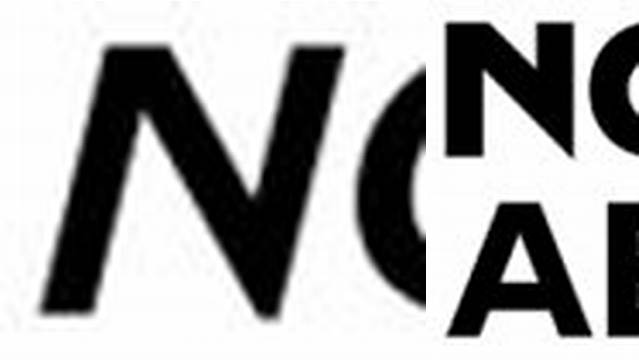
Welcome, design enthusiasts! Are you on the hunt for a font that screams modernity and boldness? Look no further! Novera, a sleek and contemporary typeface, is here to elevate your projects. And the best part? You can snag a free download! In this comprehensive guide, we'll dive deep into the world of Novera, exploring its features, ideal applications, and provide you with some killer design tips to make your work stand out. Let's get started, shall we?
Why Choose Novera? Decoding the Font's Appeal
So, what makes Novera such a compelling choice for your design needs? Well, guys, let's break it down. First and foremost, the font boasts a clean and minimalist aesthetic. This is gold, especially in today's design landscape, where simplicity often reigns supreme. The bold weight of Novera commands attention without being overwhelming. It's like that friend who walks into a room and instantly grabs everyone's eye – confident, yet approachable. Novera's versatility is another major draw. It works wonders in a wide range of applications, from website headers and social media graphics to print materials like posters and brochures. Seriously, you can experiment with it in just about any design project you can dream up.
The letterforms themselves are crafted with precision. The curves and lines are perfectly balanced, creating a visually pleasing and harmonious effect. This attention to detail makes Novera incredibly readable, even at smaller sizes, a crucial consideration for any designer. The font family often includes a range of weights, allowing you to add emphasis or create visual hierarchy in your designs. This flexibility means you can use Novera to craft a brand identity that speaks volumes about your style. Its modern appearance is a game-changer, ensuring your design looks current and on-trend. Whether you're working on a tech startup's website, a fashion brand's marketing materials, or a personal project, Novera can inject a dose of sophistication and style.
One of the coolest things about Novera is its ability to blend in seamlessly with various design elements. It's like the ultimate chameleon font! It can be paired with everything from elegant serif fonts to playful sans-serif fonts. This makes it suitable for various design styles, from minimalist to more expressive designs. And let's not forget the impact it has on your overall design message. The bold statement of Novera can communicate strength, confidence, and a modern approach, influencing how your audience perceives your brand or project. Ultimately, choosing Novera means choosing a font that is both beautiful and practical, helping you bring your creative vision to life in a stunning and memorable way. You're not just selecting a font; you're choosing a design tool that can elevate your work and captivate your audience.
Novera in Action: Design Ideas & Creative Applications
Alright, now that you've got Novera downloaded and installed, let's explore some cool ways to put it to work! Novera is incredibly versatile, making it a perfect match for various projects. Firstly, consider using Novera for website headers and titles. Its bold presence instantly grabs the viewer's attention, making your website stand out from the crowd. Think about how effective it could be for a tech blog or a modern business website. Next, social media graphics can be significantly enhanced with Novera. Create eye-catching posts, ads, and stories that are sure to catch the eye of your target audience. The font's clean lines and readability make it perfect for conveying information and promoting content. Novera is also a great choice for creating stunning print materials. Use it for posters, brochures, flyers, and business cards to create a strong visual impact. The bold weight ensures that your message will be seen and remembered.
Branding projects are another area where Novera truly shines. You can use it to create logos, brand guidelines, and other elements to establish a consistent brand identity. Its modern style can give a fresh and contemporary feel to your brand. Novera is also great for creating infographics. Its readability and bold style make it ideal for presenting complex information in a clear and engaging way. Consider using it to design presentations, reports, and other documents that require a visually appealing format. Even personal projects can benefit from Novera. Use it to create invitations, greeting cards, and other personalized materials that reflect your style. Unleash your creativity and experiment with different layouts and design elements. Consider pairing Novera with other fonts to create a diverse and eye-catching design. For example, you can use it for headlines and a more elegant serif font for body text. Combine Novera with graphic elements, such as icons, illustrations, and images, to create a cohesive and visually appealing design. Don't be afraid to experiment with different color schemes. The bold appearance of Novera allows it to be used with bright and vibrant colors or more subtle and muted tones.
Design Tips: Maximizing Novera's Potential
Ready to take your Novera-powered designs to the next level? Here are some pro tips to help you maximize its potential. First off, focus on hierarchy. Use different weights and sizes of Novera to create a clear visual hierarchy. This will guide the reader's eye and make your design easier to understand. Experiment with letter spacing and line height. Adjusting these settings can greatly impact the readability and visual appeal of your text. A little tweaking can go a long way! Next, remember to keep it clean and minimal. Novera is already a bold font, so avoid cluttering your designs with unnecessary elements. Let the font speak for itself. Always consider the context of your design. Think about where your design will be used and who your target audience is. This will help you make informed decisions about the font's application. Always test your designs in different contexts to see how they look on various devices and platforms. Make sure the text is still readable and the overall design is visually appealing. Pairing Novera with other fonts can be a brilliant way to add depth and interest to your designs. Experiment with different combinations to find the perfect match. Using Novera for headlines and a more subtle font for body text is often a great choice.
Color choices also play a crucial role. The boldness of Novera works well with various color palettes, but consider the mood you want to create. Use bright and vibrant colors for a modern and energetic feel, or opt for more muted tones for a sophisticated and elegant look. Never underestimate the power of alignment. Ensure that your text is aligned properly, and that other design elements are in harmony with the text. Maintaining a good balance and visual flow is essential for creating an effective design. Finally, embrace white space. Allowing for ample white space around your text and other design elements is vital. It prevents your designs from feeling cluttered, and it improves readability. Experiment with different layouts and arrangements to find what works best. This process will allow you to create designs that are both visually appealing and easy to navigate. Take these tips to heart, and watch your Novera designs soar!
Final Thoughts: Unleash Your Creativity with Novera
So there you have it, guys! Novera is an awesome font to have in your design arsenal. With its modern and bold look, ease of use, and wide range of applications, it's a fantastic choice for any project. Remember to download it from a trusted source, check the licensing, and get creative! Don't be afraid to experiment with different styles, layouts, and color schemes. Novera is a versatile tool, and your imagination is the limit. Happy designing, and may your projects be filled with boldness and beauty! Go forth and create! We hope this guide has inspired you and equipped you with the knowledge to use Novera effectively in your design projects. Embrace the possibilities, explore your creativity, and make every design project a masterpiece. Remember, the right font can make all the difference. Keep designing, and never stop learning! This is your moment to shine! Have fun with it!